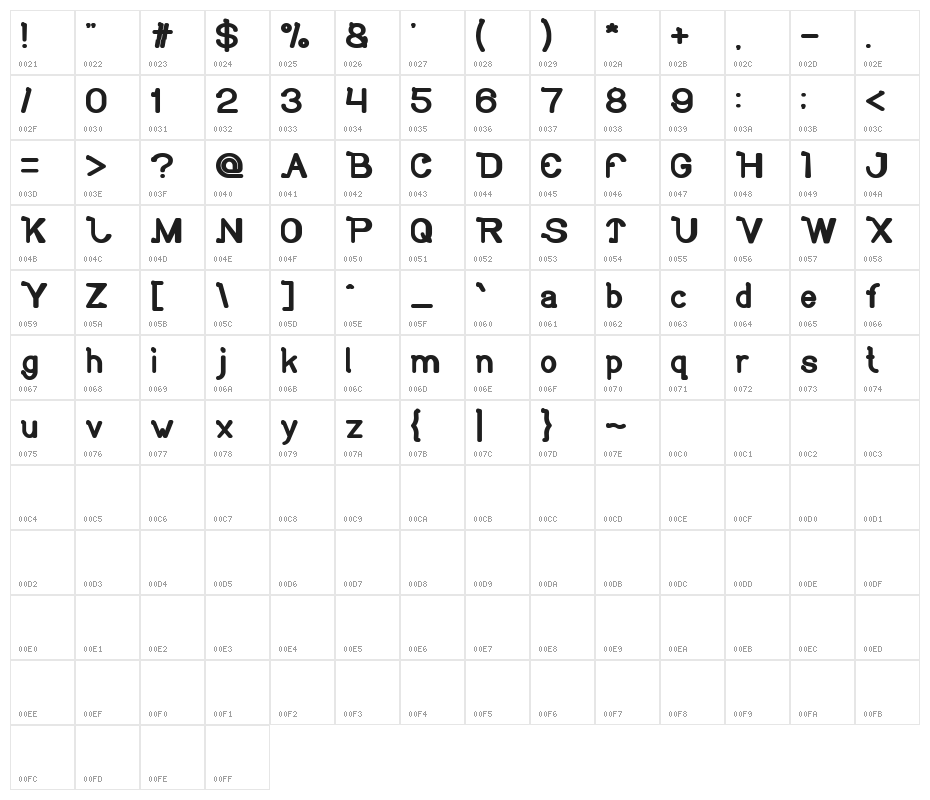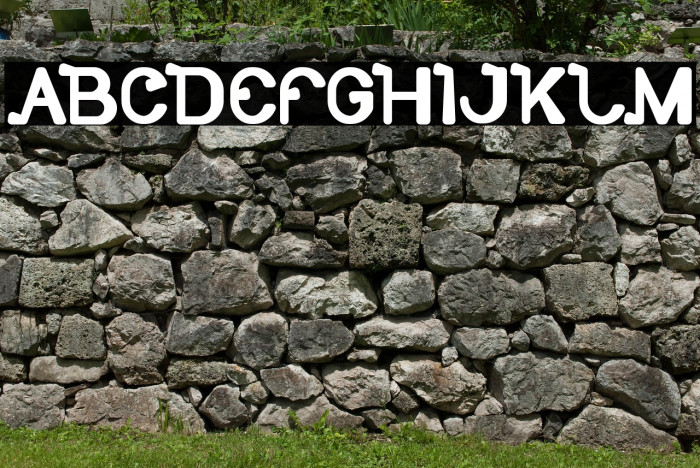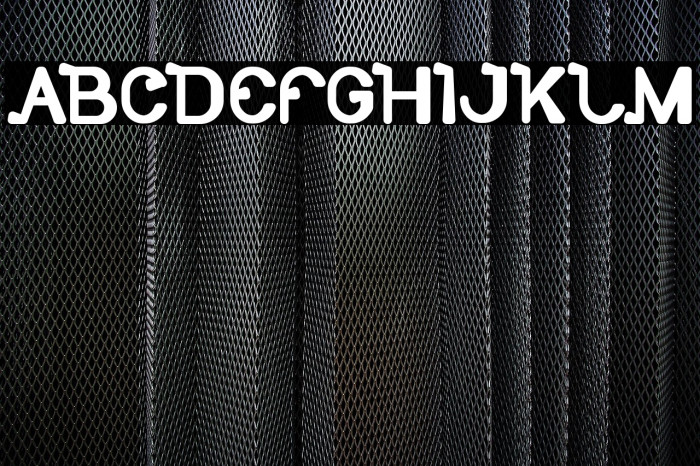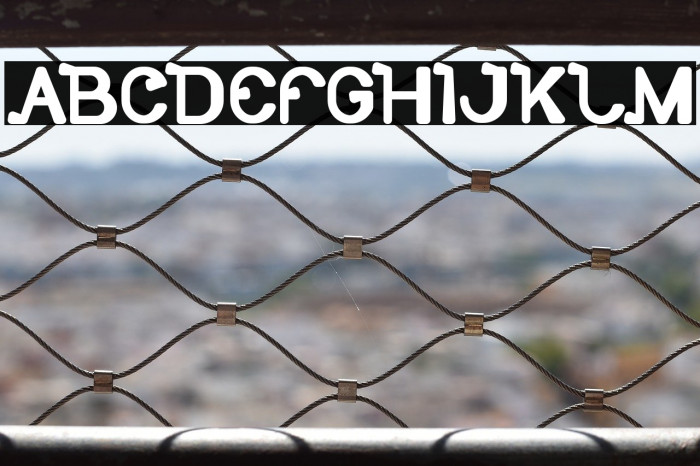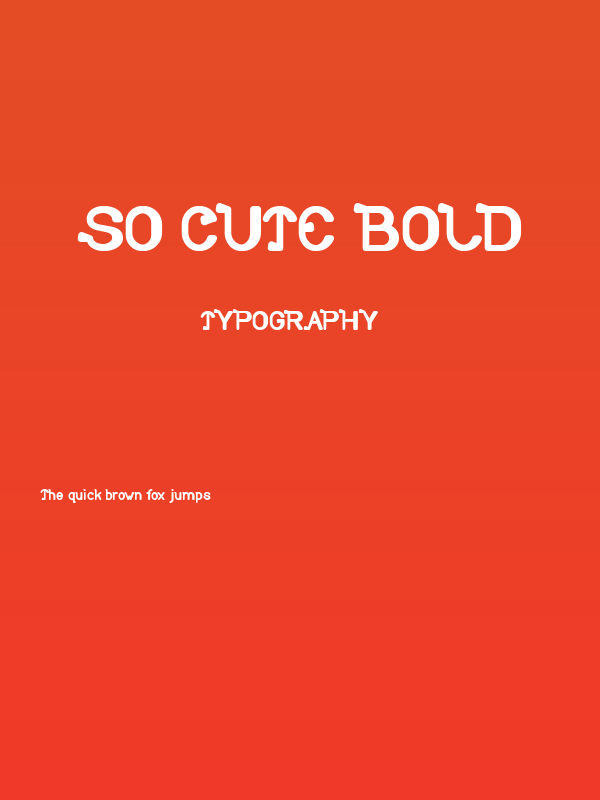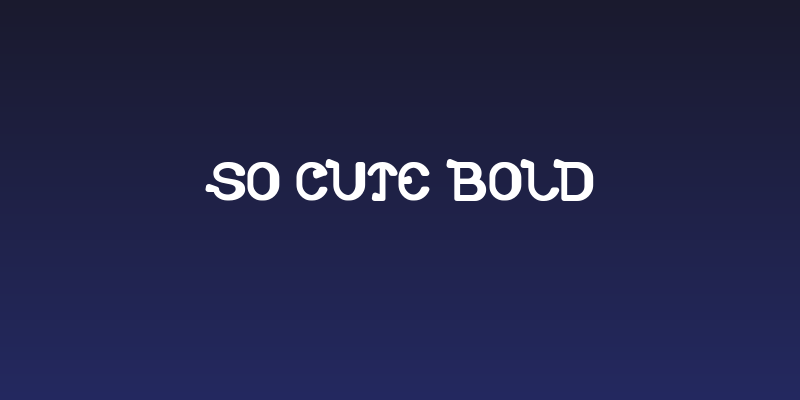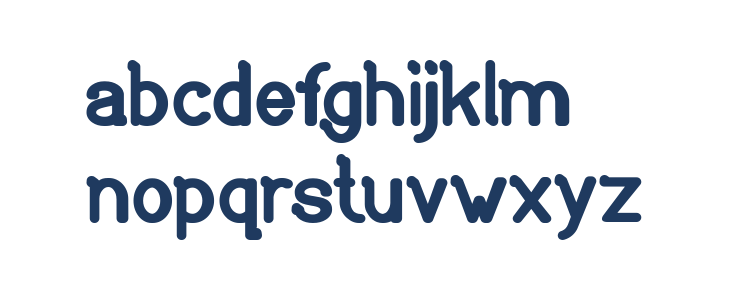
So Cute Bold Font
So Cute Bold Description
This playful and bold font features rounded edges and a friendly, approachable style. The characters are thick and uniform, with a consistent stroke width that gives it a strong presence. The rounded terminals and slightly exaggerated curves add a whimsical touch, making it ideal for projects that require a fun and inviting look. The font maintains a consistent baseline and x-height, ensuring readability while still conveying a sense of playfulness. Its boldness makes it stand out, making it suitable for headlines and attention-grabbing text.
| Proposed Projects | Ideal for children's books, playful branding, posters, and social media graphics. |